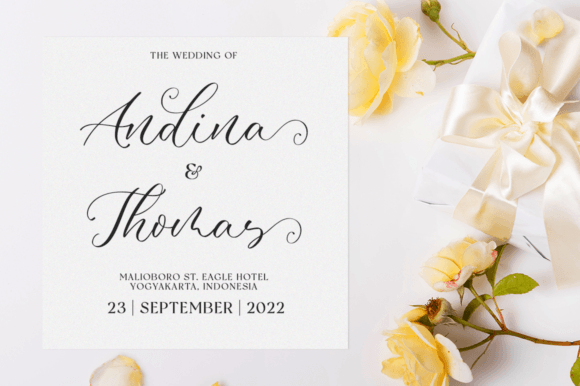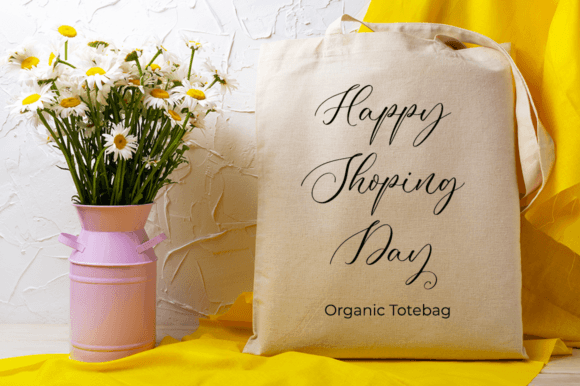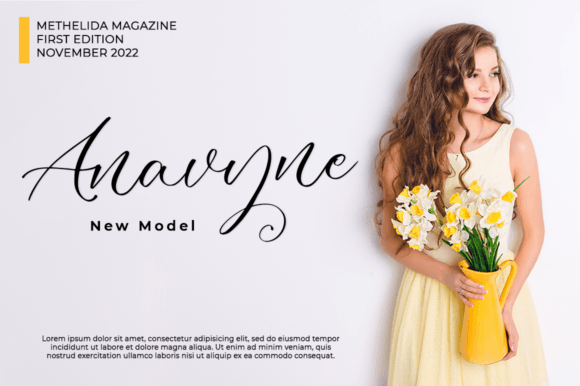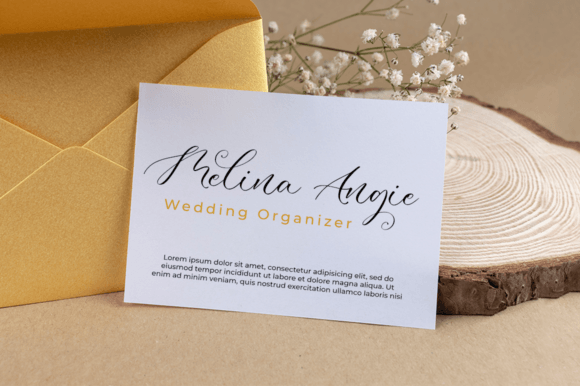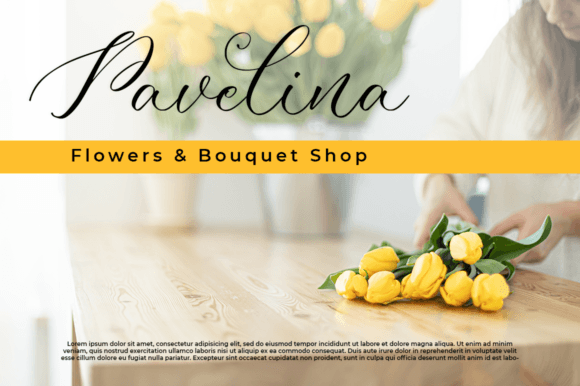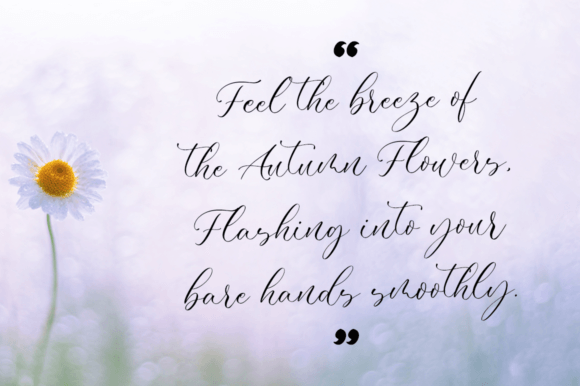
Introduction to Miralossa Font
As a designer, have you ever found yourself staring at a blank canvas, searching for the perfect font to bring your creative project to life? The perfect font can be the difference between a good design and a great one. For those seeking a high-quality design resource, look no further than the Miralossa Font.
This beautiful script font is designed to add an elegant and modern touch to any design, from logos and branding to invitations and wedding designs. Its refined style will make your work stand out, and with its transparent background, it’s easy to use and customize. What’s more, the Miralossa Font is PUA encoded, allowing you to access all glyphs and swashes with ease, making it a valuable addition to any designer’s toolkit.
Miralossa Font
- High-quality design resource ideal for creative projects, offering a unique and stylish touch.
- Features a transparent background, allowing for easy layering and customization in your design project.
- Available in multiple sizes and resolutions, including 100px, 200px, and 300px, to cater to different design needs.
- Unique characteristics include elegant lines, subtle curves, and a sophisticated aesthetic, making it perfect for branding and typography projects.
- Can be used in a variety of creative applications, including logos, business cards, and brochures, to add a touch of sophistication and style.
Honest Review: Miralossa Font
As a designer, I’m always on the lookout for high-quality design resources to elevate my creative projects. The Miralossa Font is one such find that has left me impressed.
- ✨ Elegant and refined design aesthetic, perfect for luxury brands or high-end creative projects.
- ✨ Clean and crisp typography, ideal for modern designs where transparency is key.
- ✨ A wide range of weights and styles, allowing for versatility in its application.
While the Miralossa Font excels in many areas, there are a few limitations to consider:
- ⚠️ Limited character set support, which may impact its usability for languages that require complex character sets.
- ⚠️ May not be suitable for projects requiring extreme font sizes, as it can become pixelated.
Overall, I’m thoroughly impressed with the Miralossa Font. Its high-quality design and versatile range of styles make it an excellent addition to any designer’s toolkit. With a bit of creative consideration, this font can elevate even the most mundane projects into something truly special.
Miralossa Font
Tips for Getting the Most Out of Miralossa Font
For a transparent background, use the font in a design with a solid-colored background. Experiment with different font sizes and styles to add visual interest to your design.
Miralossa Font is ideal for creating logos, social media graphics, and presentations. Its high-quality design makes it perfect for professional and creative projects.